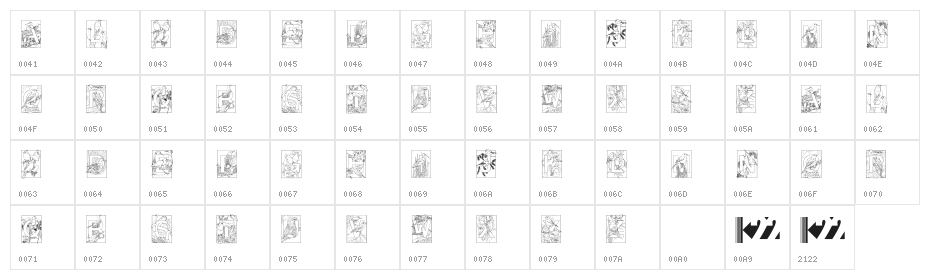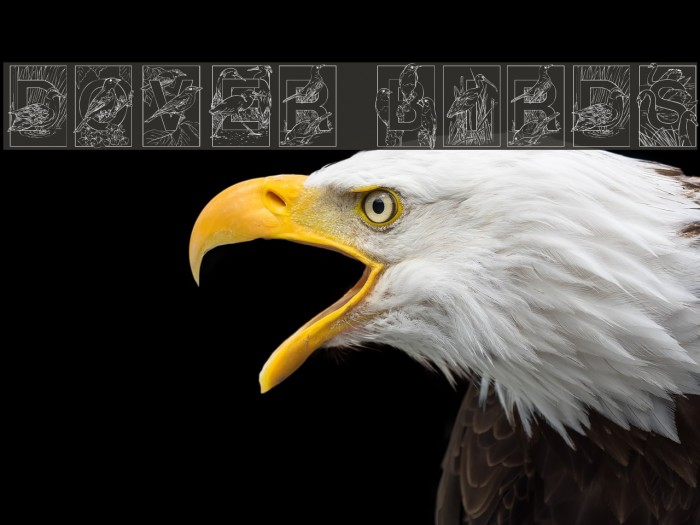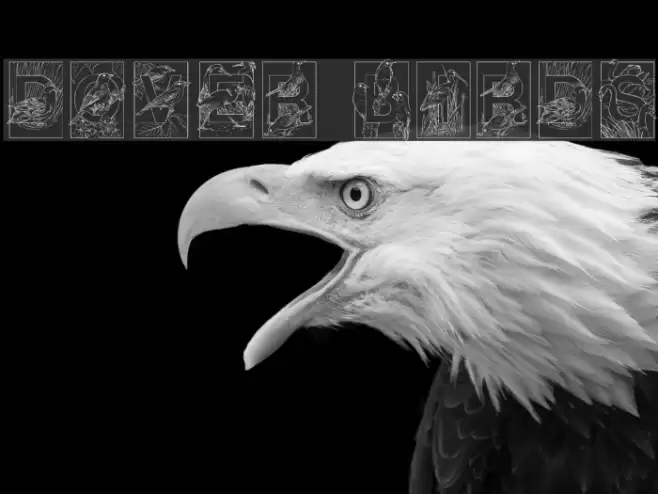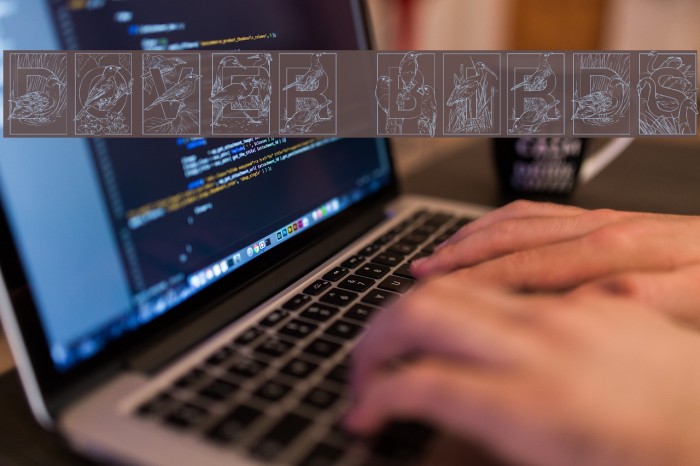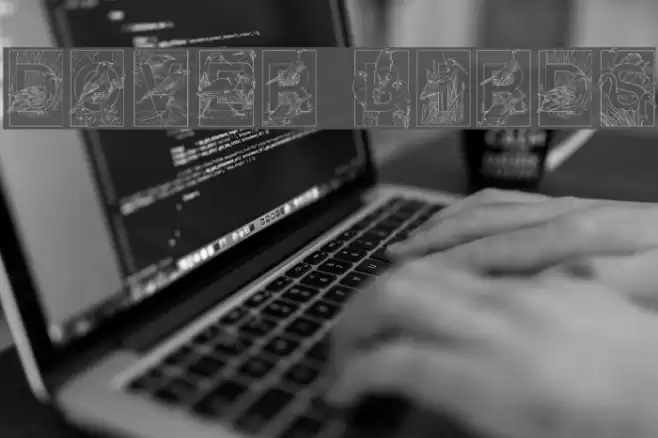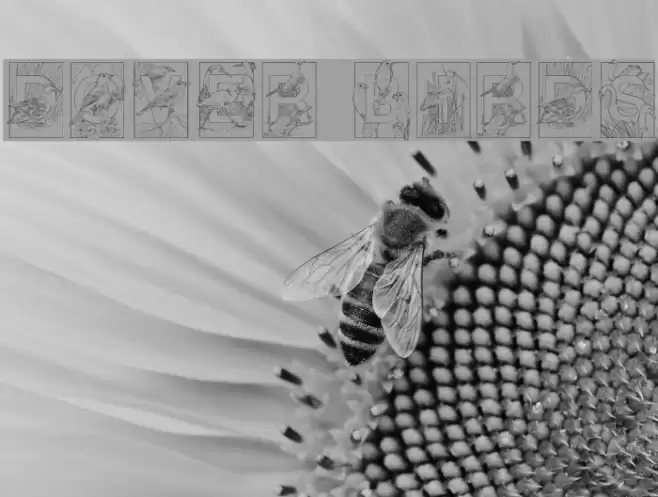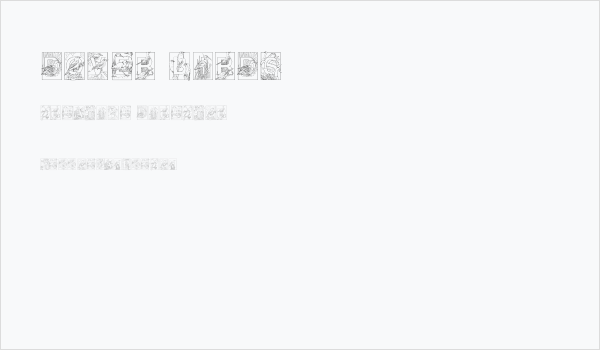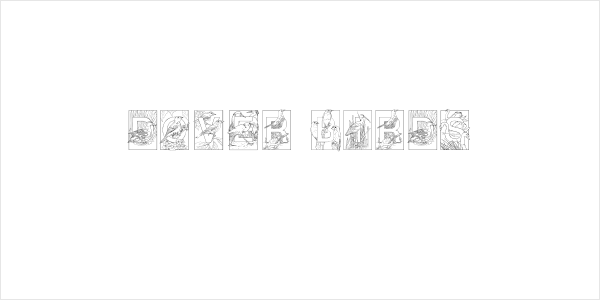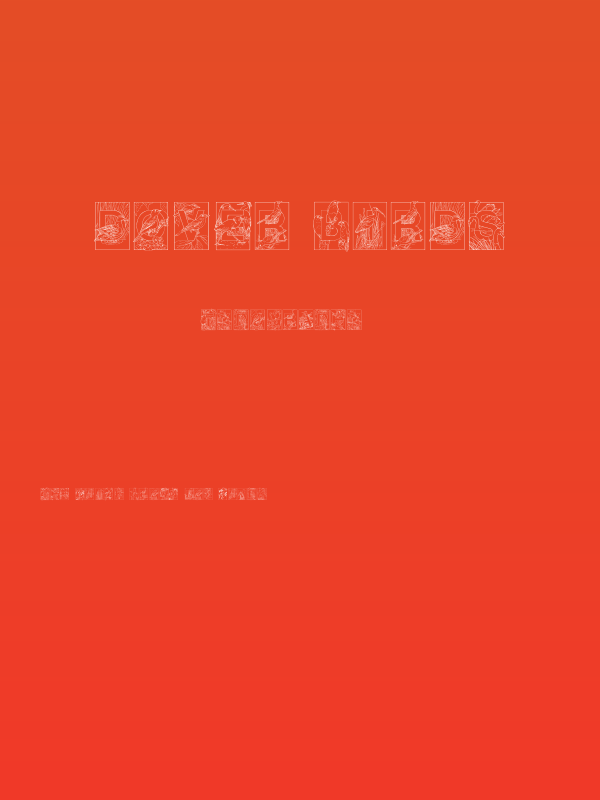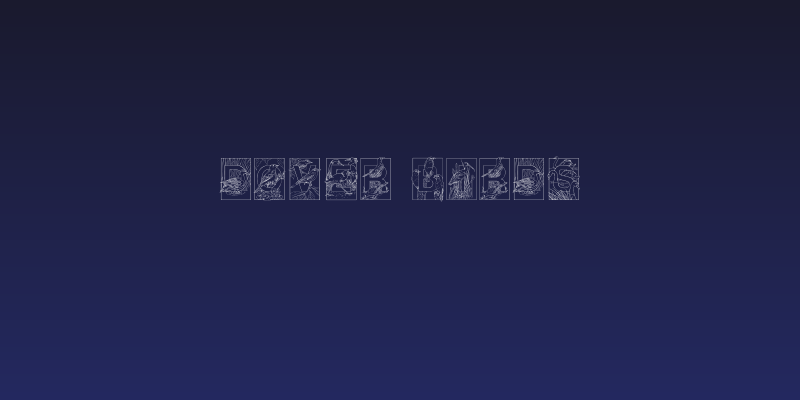
Dover Birds Font
Dover Birds Description
This font is a decorative and artistic typeface featuring intricate bird illustrations within each letter. Each character is uniquely designed with detailed bird motifs, making it highly ornamental and visually captivating. The letters are uppercase and are filled with various bird species, showcasing a blend of nature and typography. The intricate designs make it suitable for projects that require a touch of elegance and creativity. The font's artistic nature makes it more suitable for decorative purposes rather than practical text usage.
| Use Case | Logos, Headlines, Decorative purposes |
| Proposed Projects | Ideal for nature-themed projects, artistic posters, book covers, and decorative invitations. |